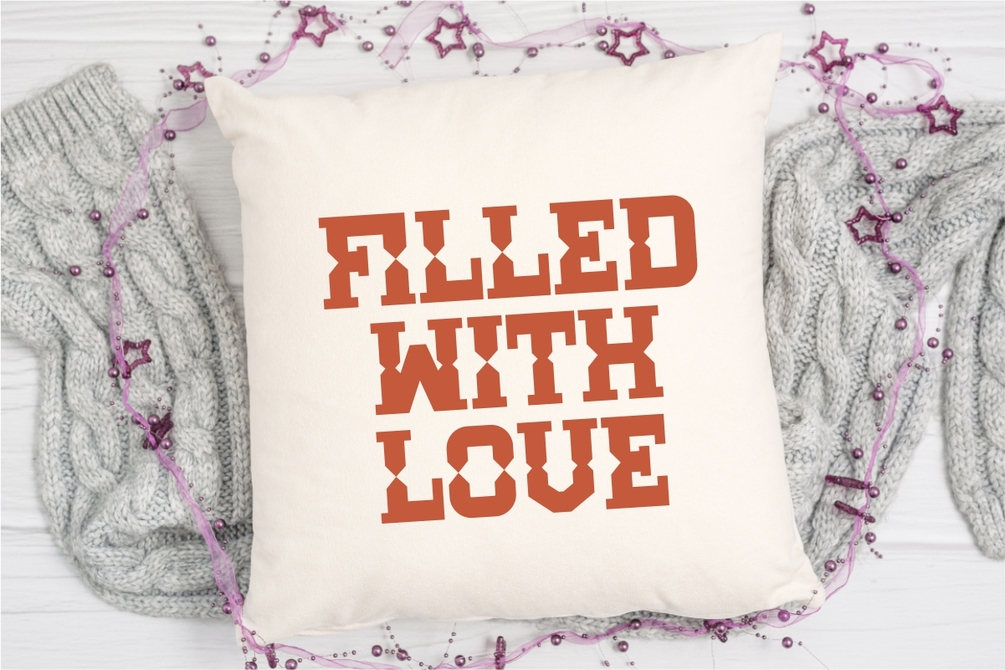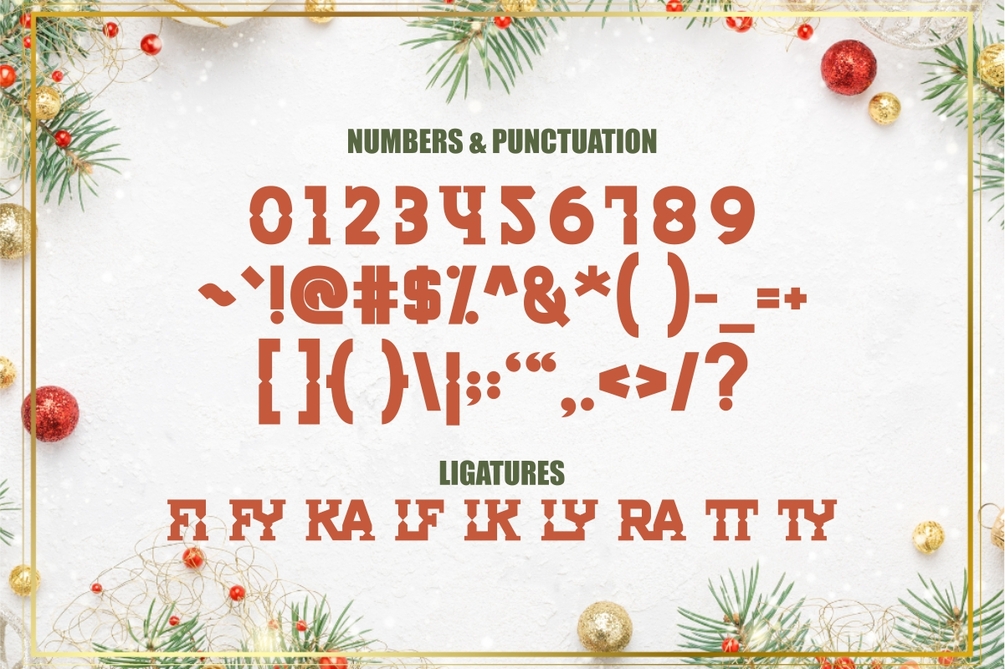
Holly Grace - Quirky Display Font
Holly Grace is a bold and playful quirky display font that brings festive cheer and unique character to your designs. With its geometric cuts and eye-catching style, this font is perfect for holiday cards, Christmas crafts, posters, invitations, logos, T-shirt designs, and packaging.
Whether you’re working on festive projects, cozy branding, or creative DIY crafts, Holly Grace will make your typography stand out with personality and charm. Its strong shapes and stylish curves give your work a modern yet fun touch, making it ideal for both digital and print designs.
Bring joy and bold expression to your creations with Holly Grace — the perfect font for the holiday season and beyond!